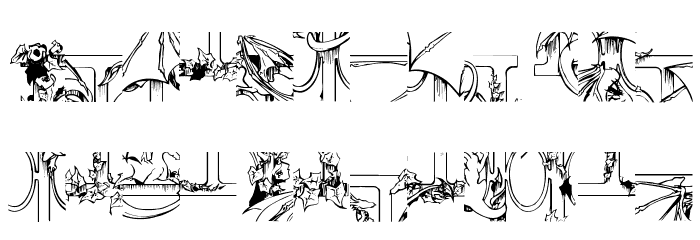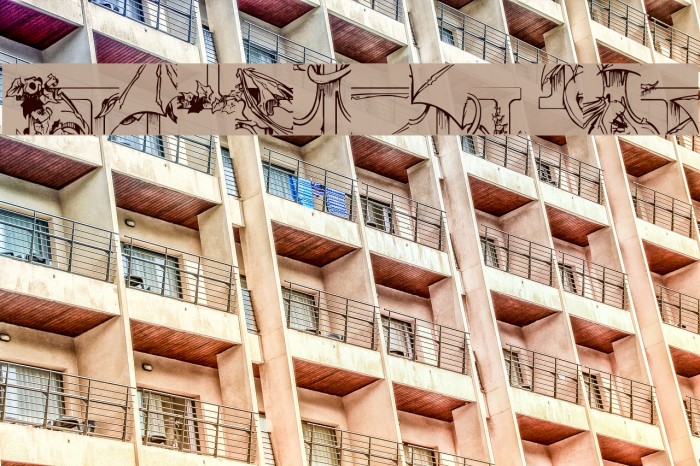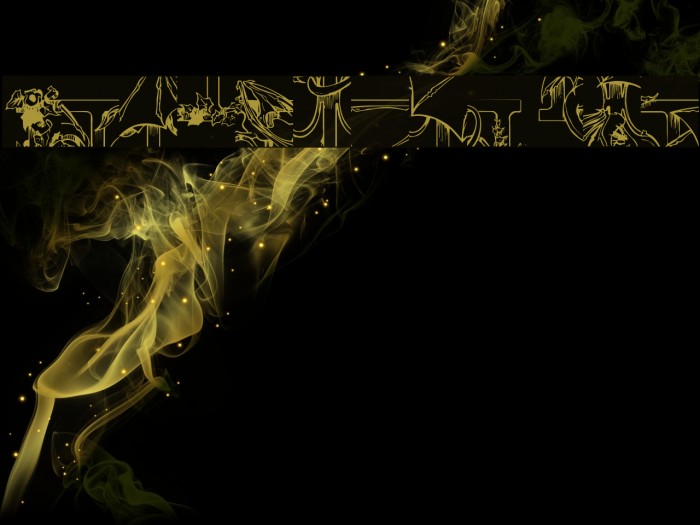
Puzzler4 Font
This font is a highly decorative and artistic typeface, featuring intricate floral and abstract embellishments that intertwine with each letter. The design is reminiscent of vintage or baroque styles, with elaborate curves and flourishes that give it a unique and ornate appearance. Each character is a work of art, making it suitable for projects that require a touch of elegance and sophistication. The font's complexity and detail suggest it is best used in larger sizes where its artistic elements can be fully appreciated.
An ornate, decorative font with intricate floral embellishments.
- Proposed Projects: Ideal for wedding invitations, luxury branding, decorative posters, and artistic projects that require a vintage or elegant touch.
- Overall Style: Vintage, Ornate, Artistic
- Use Case: Logos, Headlines, Decorative text